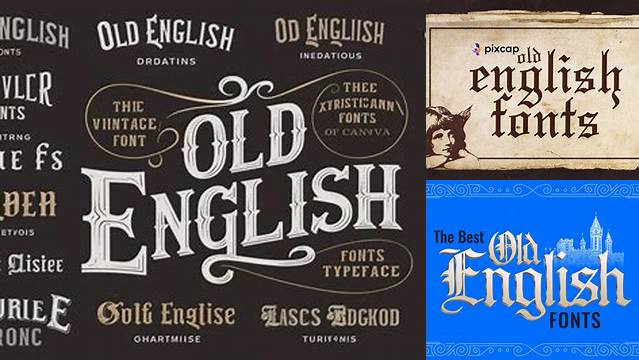
Old English Fonts: A Guide To Using Them In HTML
Are you ready to dive into the world of Old English fonts and discover their timeless appeal? Guys, this is where the magic happens! Old English fonts, also known as blackletter fonts, evoke a sense of history, tradition, and sophistication. If you're looking to add a touch of classic elegance to your projects, you've come to the right place. In this comprehensive guide, we'll explore the fascinating world of Old English fonts, their historical significance, and how you can use them to create stunning designs. We'll also delve into the specifics of using them in HTML and explore the vast collection available at 1001fonts.com. So, buckle up and get ready for a font-tastic journey!
What are Old English Fonts?
When we talk about Old English fonts, we're referring to a style of writing that originated in Europe during the Middle Ages. These fonts, also called blackletter, Gothic script, or Fraktur, are characterized by their dense, angular strokes and ornate details. Imagine the majestic calligraphy you'd see in ancient manuscripts or the headings of old newspapers – that's the essence of Old English. The history of Old English fonts is deeply intertwined with the development of writing itself. These fonts emerged from Carolingian minuscule, a script developed during the reign of Charlemagne, and evolved into various regional styles across Europe. The invention of the printing press in the 15th century solidified the use of blackletter fonts, making them the dominant typeface for centuries. However, with the rise of humanist typefaces during the Renaissance, Old English fonts gradually declined in popularity for body text but remained a favorite for decorative purposes. Today, Old English fonts are enjoying a resurgence in popularity, gracing everything from tattoos and logos to invitations and websites. Their unique aesthetic adds a touch of class and historical depth, making them a powerful choice for projects that require a sense of gravitas and tradition. Think about it – using an Old English font is like adding a whisper of history to your work, connecting it to centuries of artistic and cultural heritage.
The History and Significance
To truly appreciate the beauty and impact of Old English fonts, we need to delve into their rich history and cultural significance. This journey through time will give you a deeper understanding of why these fonts are so evocative and why they continue to be used today. Originating in the medieval era, Old English fonts, or blackletter scripts, were the workhorses of written communication for centuries. They were the fonts used in important historical documents, religious texts, and the very first printed books. Think about the Gutenberg Bible, one of the most iconic books in history – it was printed using a blackletter font! This historical association lends a unique weight and authority to Old English fonts. They carry the echoes of history within their strokes. The development of these fonts wasn't uniform across Europe. Different regions developed their own distinct styles, reflecting local artistic sensibilities and linguistic nuances. This regional variation adds to the richness and diversity of the Old English font family. Some styles are more angular and dense, while others are more rounded and flowing. This diversity means you can find an Old English font that perfectly matches the tone and style of your project. While Old English fonts were eventually replaced by more legible humanist typefaces for long-form reading, they never completely disappeared. They continued to be used for specific purposes, such as legal documents, diplomas, and religious texts, preserving their association with formality and tradition. In the modern era, Old English fonts have experienced a revival, finding new life in graphic design, branding, and even popular culture. They're used to evoke a sense of history, authenticity, and classic elegance. From the logos of sports teams to the titles of fantasy novels, Old English fonts have proven their enduring appeal and versatility.
Using Old English Fonts in HTML